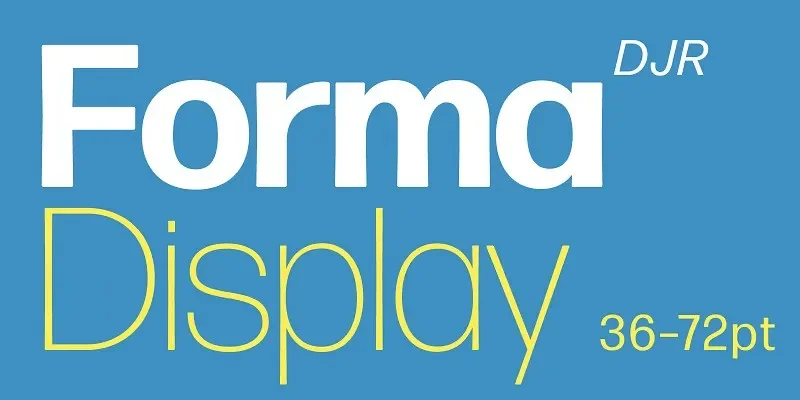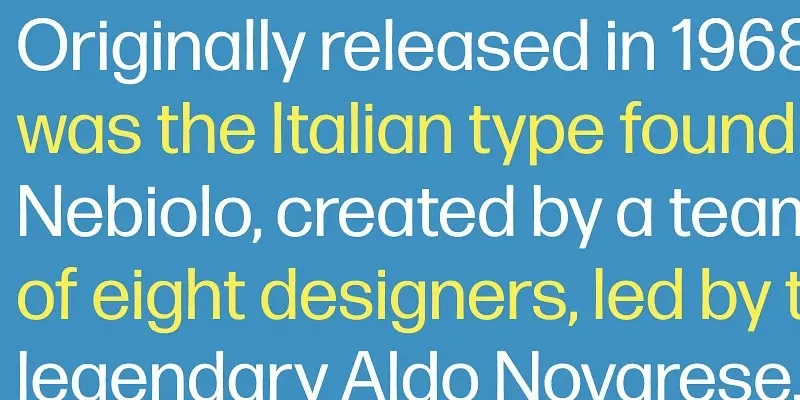
Forma DJR Display Font Family supports designers building strong headline systems without breaking brand consistency. Many display fonts clash with text companions.
Forma DJR Display is a sans-serif display font family with tighter spacing, higher contrast, and refined curves. Designed by David Jonathan Ross, it pairs directly with Forma DJR Text and Micro.